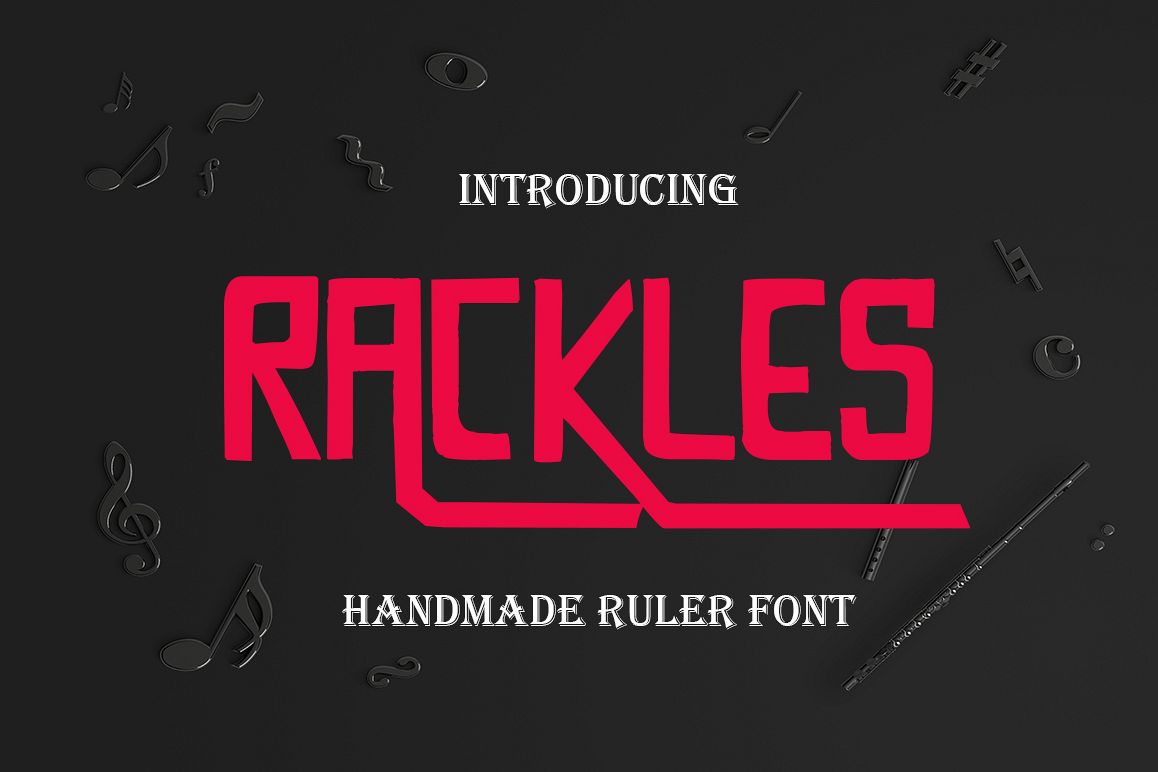
Rackless
Rackless.
Use Enjoy the Ride typeface to make logo marks, posters, T-shirt designs or anything that requires that personal touch.
lowercase
uppercase
multilingual characters